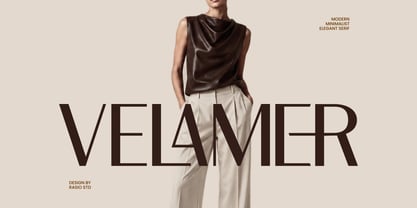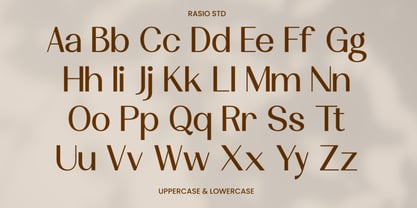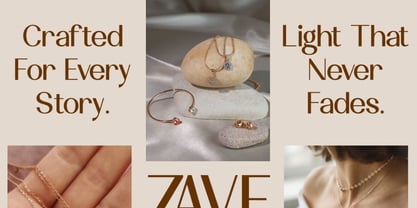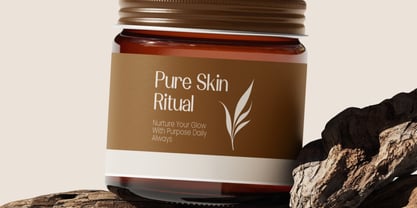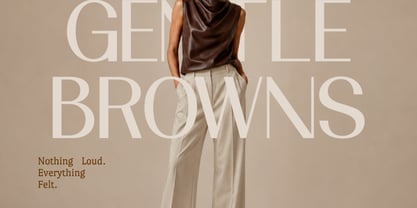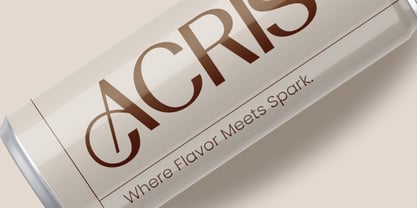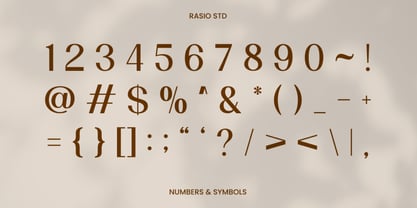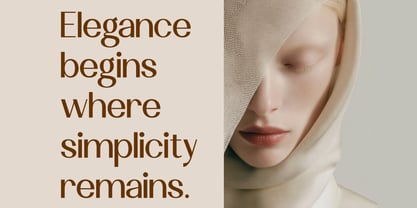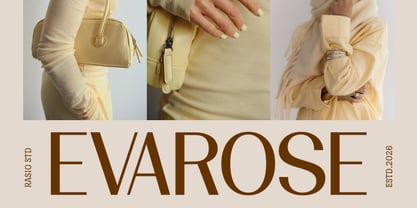
Velamer
by Rasio Studio
The Velamer Font Family was designed by Fajar Indra and published by Rasio Studio. Velamer contains 1 styles. More about this family
Velamer is a contemporary serif typeface that embraces simplicity through refined proportions, clean construction, and understated elegance. Designed with a harmonious balance of sharp geometry and soft curves, the font presents a sophisticated silhouette that feels modern while maintaining the timeless appeal of classic serif typography. Its elongated letterforms, generous spacing, and carefully controlled stroke contrast create a calm visual rhythm.
Relevance and Use Case is perfect for creative professionals who value refined typography with a clean and luxurious appearance. Its minimalist serif construction makes it ideal for fashion branding, luxury product packaging, editorial publications, boutique identities, cosmetic labels, interior design studios, premium hospitality brands.
Designers: Fajar Indra
Foundry: Rasio Studio